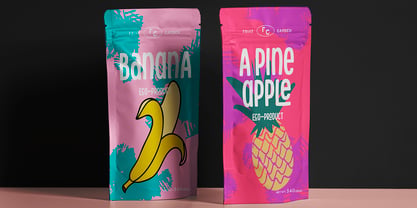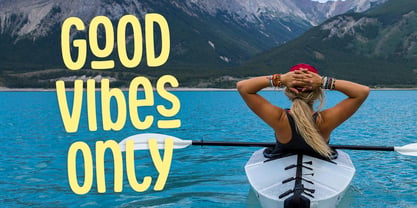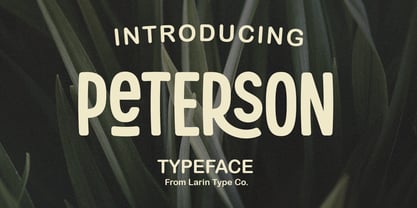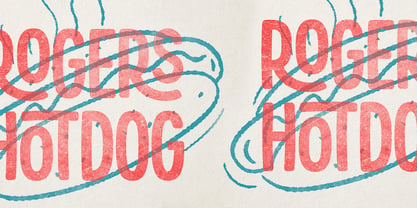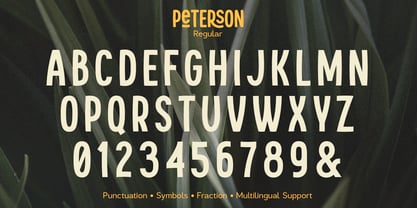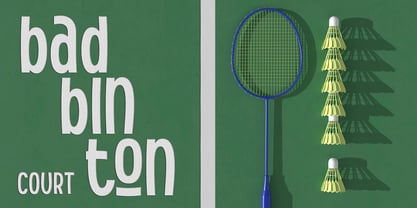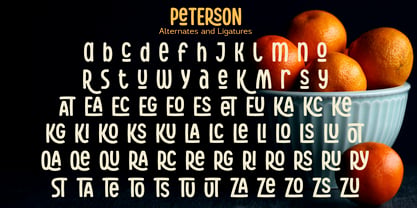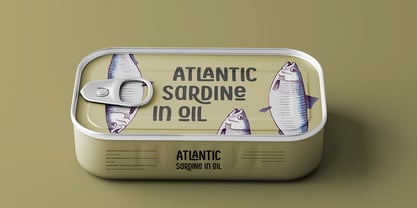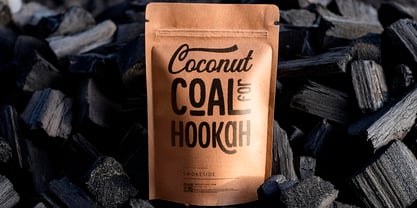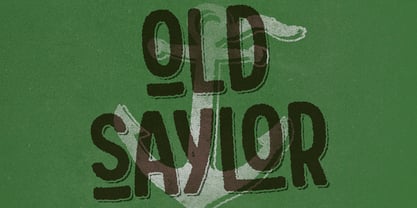
Peterson
by Larin Type Co
The Peterson Font Family was designed by Pavel Larin and published by Larin Type Co. Peterson contains 3 styles and family package options. More about this family
Peterson is a stunning display sans serif font available in three distinct styles: Regular, Round, and Rough. This versatile font offers a wealth of alternates and ligatures, allowing you to unleash your creativity in design. Whether you're working on modern projects or vintage aesthetics, Peterson serves as an excellent choice for both primary and supplementary text. Its user-friendly design is enhanced by OpenType features, making it an ideal option for branding, web design, and editorial use.